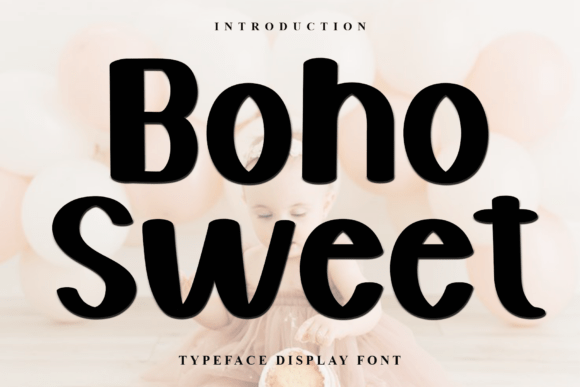
Introducing Boho Sweet Font: The Ultimate Choice for Creative Designs
Are you on the hunt for a font that can elevate your designs and add a touch of personality to your projects? Look no further than Boho Sweet Font! This sweet and friendly font is perfect for creatives who want to add a unique flair to their work. With its natural and distinctive style, Boho Sweet Font is incredibly versatile and can be used in a wide range of designs.
What Makes Boho Sweet Font So Special?
Boho Sweet Font is a one-of-a-kind font that boasts a range of features that make it perfect for creative projects. Here are just a few of the things that set it apart:
- Unique and Natural Style: Boho Sweet Font has a distinctive, hand-crafted feel that gives it a natural and organic look. This makes it perfect for designs that require a personal touch.
- Highly Versatile: Whether you’re working on a branding project, a website, or a social media graphic, Boho Sweet Font is incredibly versatile and can be used in a wide range of designs.
- Easy to Read: Despite its unique style, Boho Sweet Font is incredibly easy to read, making it perfect for body text and other applications where legibility is key.
Design Inspiration: How to Use Boho Sweet Font
So, how can you use Boho Sweet Font in your designs? The possibilities are endless! Here are a few ideas to get you started:
- Branding and Logos: Boho Sweet Font is perfect for branding and logo design. Its unique style and natural feel make it a great choice for companies that want to stand out from the crowd.
- Web Design: Add a touch of personality to your website with Boho Sweet Font. Its easy-to-read style makes it perfect for body text, while its unique feel makes it a great choice for headings and titles.
- Social Media Graphics: Boho Sweet Font is perfect for social media graphics, including Facebook posts, Instagram stories, and more.
Tips and Tricks for Using Boho Sweet Font
Here are a few tips and tricks to help you get the most out of Boho Sweet Font:
- Experiment with Different Sizes: Boho Sweet Font looks great in a range of sizes, from small body text to large headings. Experiment with different sizes to find the perfect fit for your design.
- Pair it with Other Fonts: Boho Sweet Font pairs well with a range of other fonts. Try pairing it with a clean sans-serif font for a bold, modern look.
- Use it for Headings and Titles: Boho Sweet Font is perfect for headings and titles. Use it to add a touch of personality to your design and draw attention to key information.
Font Pairing: How to Choose the Perfect Font to Pair with Boho Sweet
Choosing the perfect font to pair with Boho Sweet Font can be a challenge. Here are a few tips to help you find the perfect match:
- Look for Contrasting Styles: Pair Boho Sweet Font with a font that has a contrasting style, such as a clean sans-serif font.
- Consider the Mood and Tone: Think about the mood and tone you want to convey with your design. If you want to create a bold, modern look, pair Boho Sweet Font with a geometric sans-serif font.
In conclusion, Boho Sweet Font is a sweet and friendly font that’s perfect for creatives who want to add a unique touch to their designs. With its natural and distinctive style, Boho Sweet Font is incredibly versatile and can be used in a wide range of designs. Whether you’re working on a branding project, a website, or a social media graphic, Boho Sweet Font is the perfect choice.